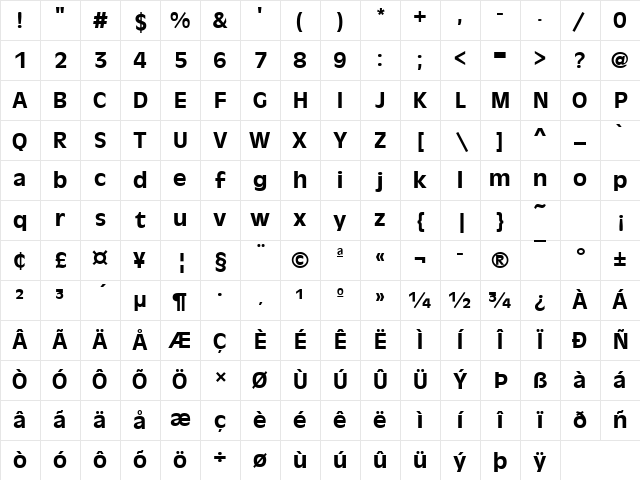
Antigoni Med Regular
Design Context for Antigoni Med
Antigoni Med is a composed and adaptable typeface that performs quietly and consistently across a wide range of design contexts.